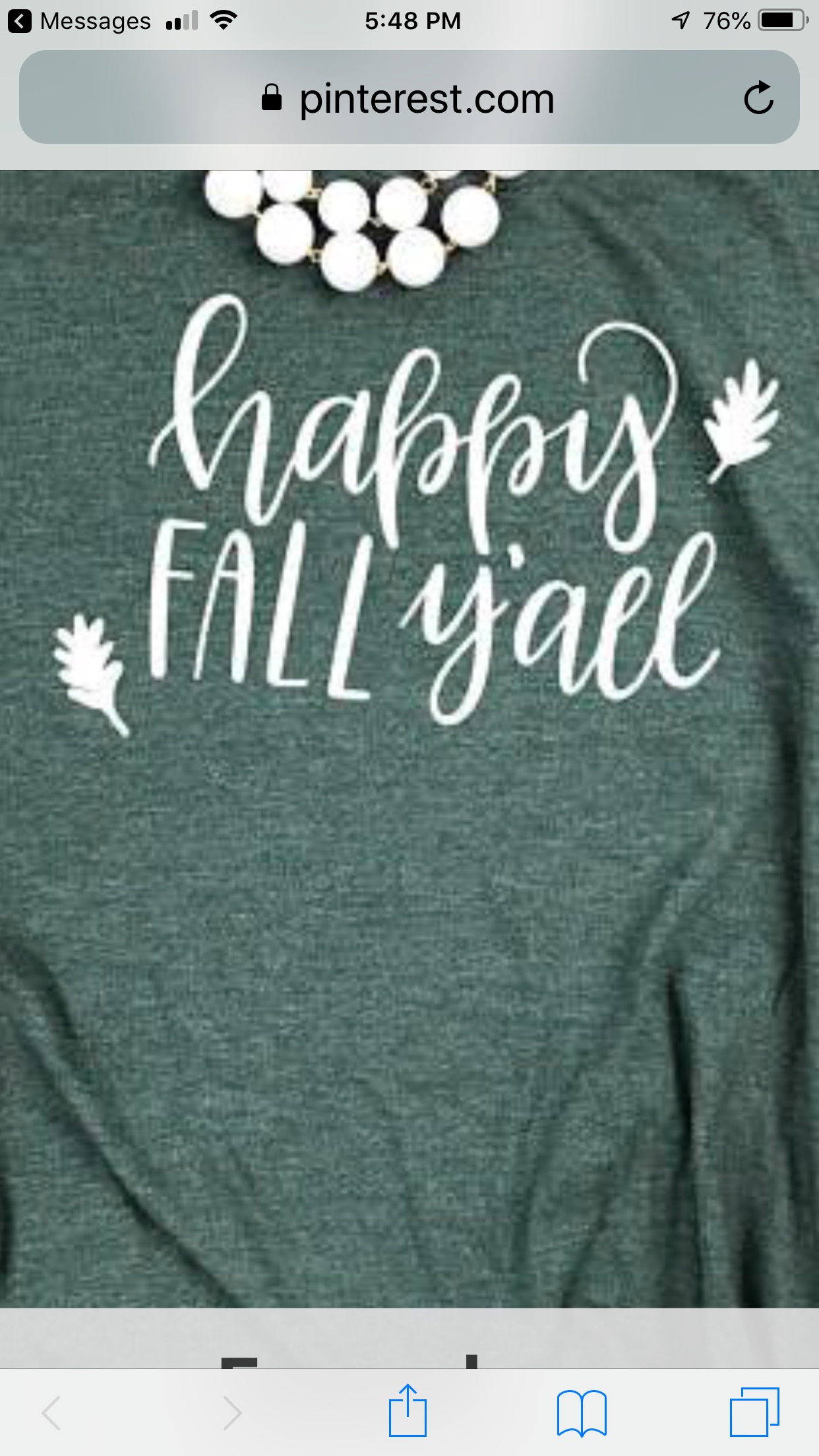
Find my Font isn't helping me
I posted last week but I just know some of the experts on here missed it because I have never stumped them. I need both fonts.
Don't know what it's called but I see it everywhere on shirts and all manner of craft stuff. Take a walk through Hobby Lobby and about half of the items on display with some sort of text are using this ridiculous script. It should be easy to find and right next to it will no doubt be whatever type face 'FALL' is set.
I've seen both, or at least close, on dafont.com - go to category "Handwritten" - type the text in the preview box. It shouldn't be very difficult to find one similar.
Yeah visit Fontspace.com and there's a hundred similar script fonts like this.